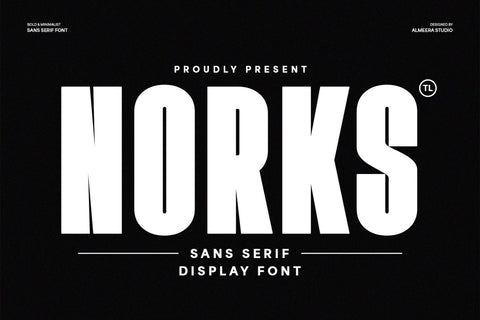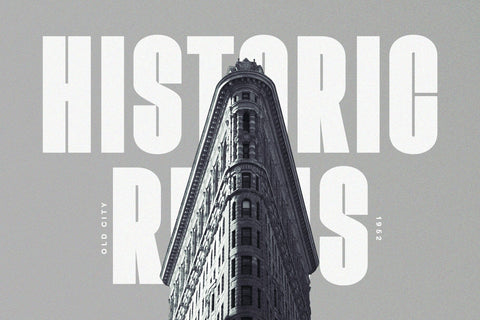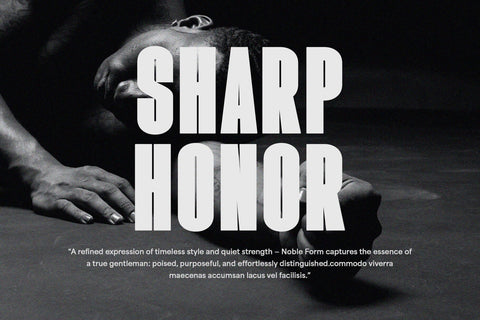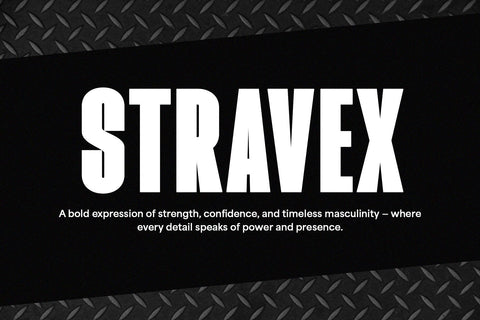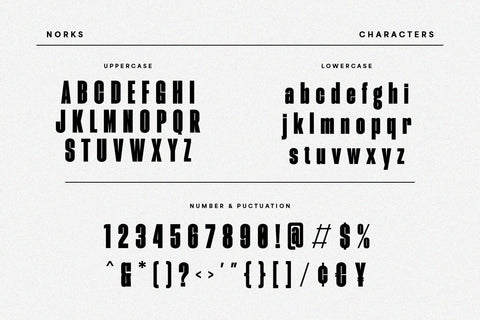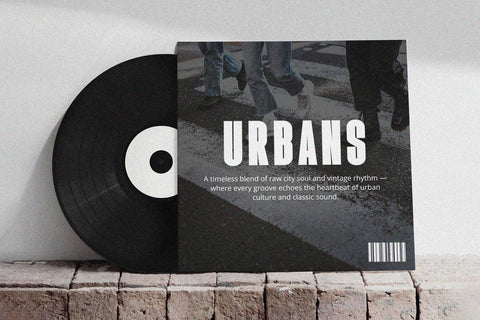
Norks - Bold & Minimalist Sans Serif Font
Introducing Norks, a powerful and contemporary bold and minimalist sans serif font designed for striking visual impact. This commanding display typeface is your go-to solution for modern branding, impactful headlines, dynamic logos, and any project demanding a strong, clean presence. Norks boasts robust, clean lines and a commanding character that ensures exceptional readability and a distinctly modern aesthetic. Whether you're crafting an innovative website, an eye-catching advertisement, or a sleek corporate identity, Norks delivers an undeniable sense of strength and sophistication. Elevate your typography with Norks, the essential font for designers seeking to make a memorable statement with clarity and contemporary style.